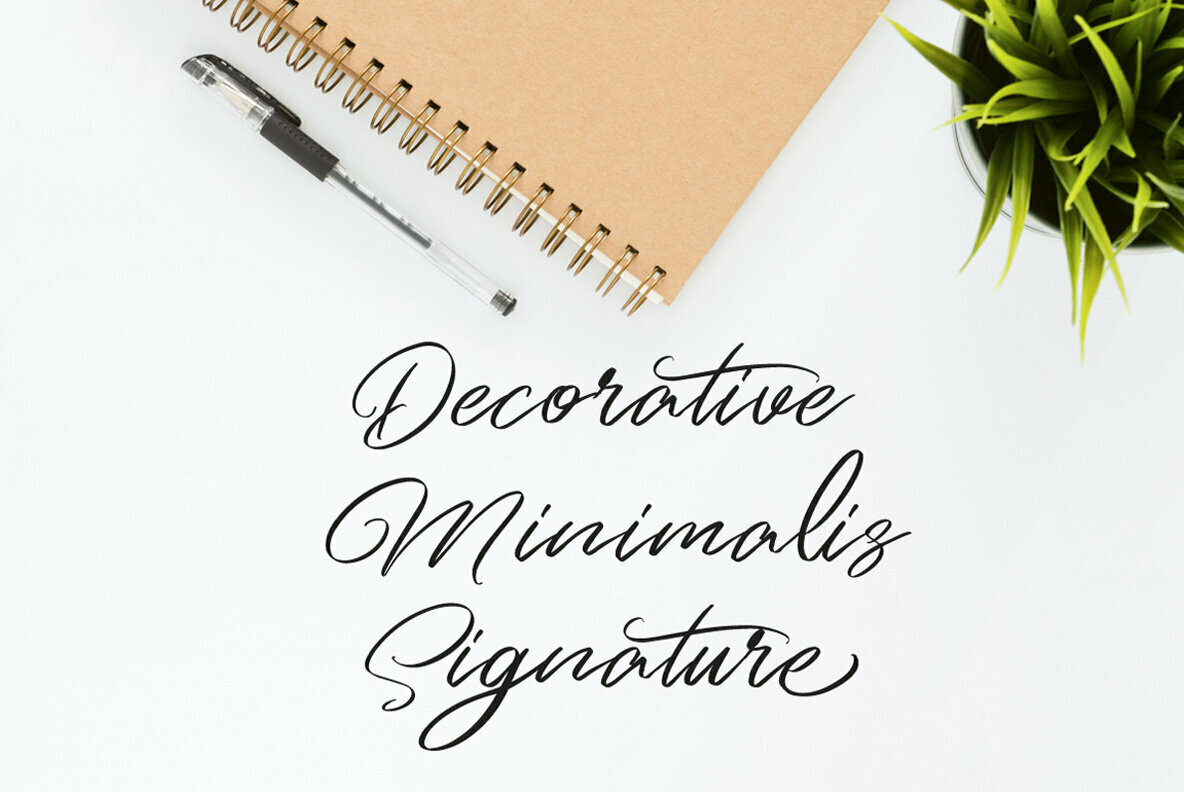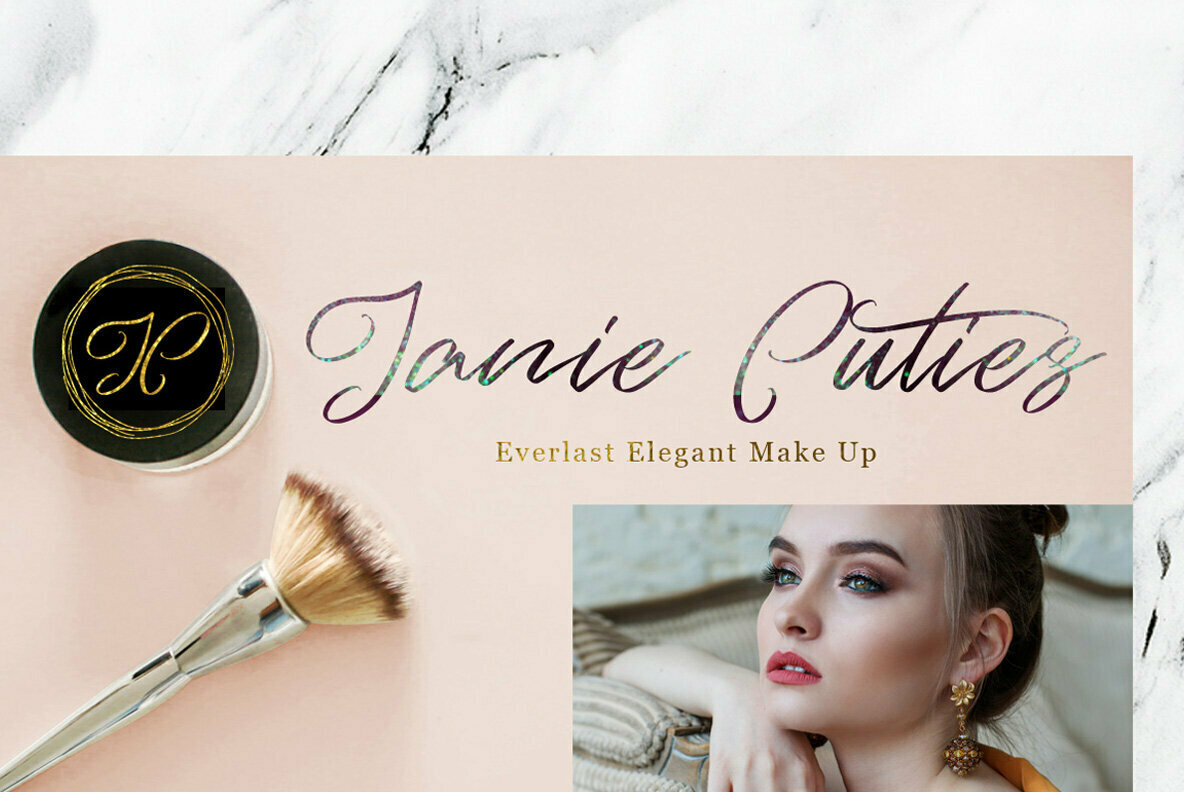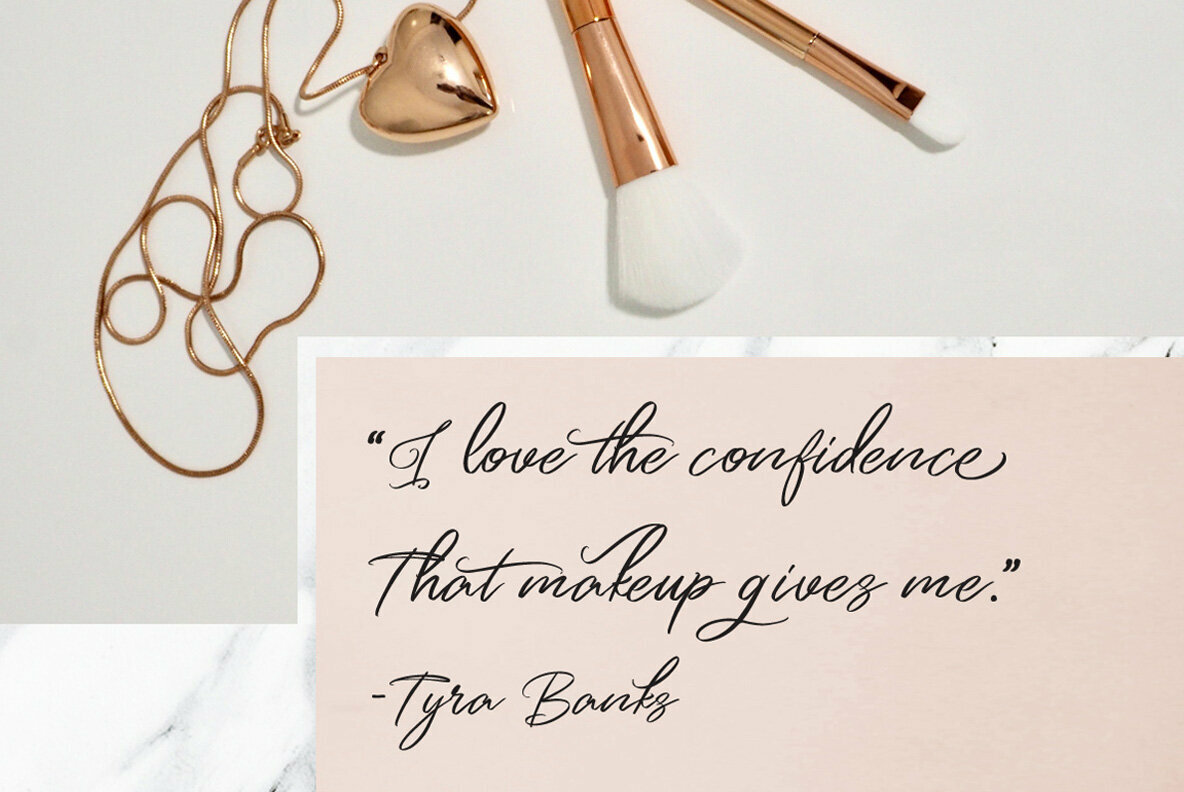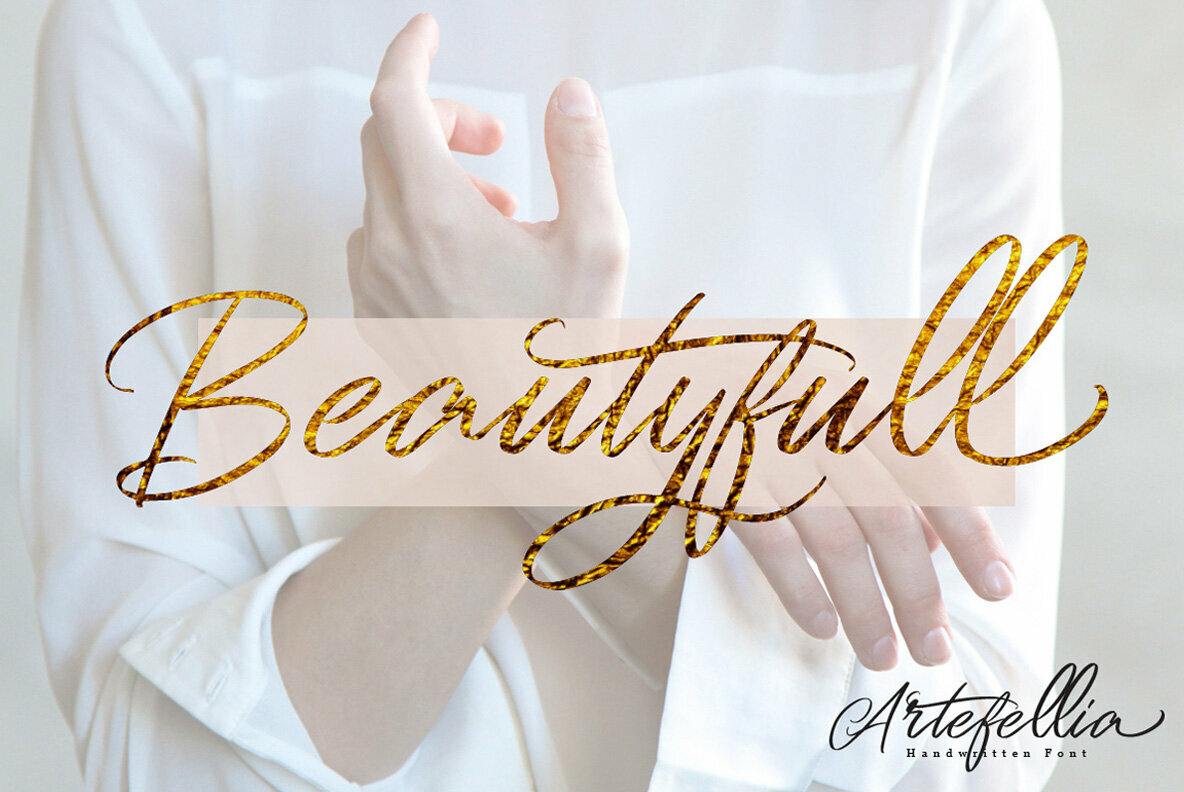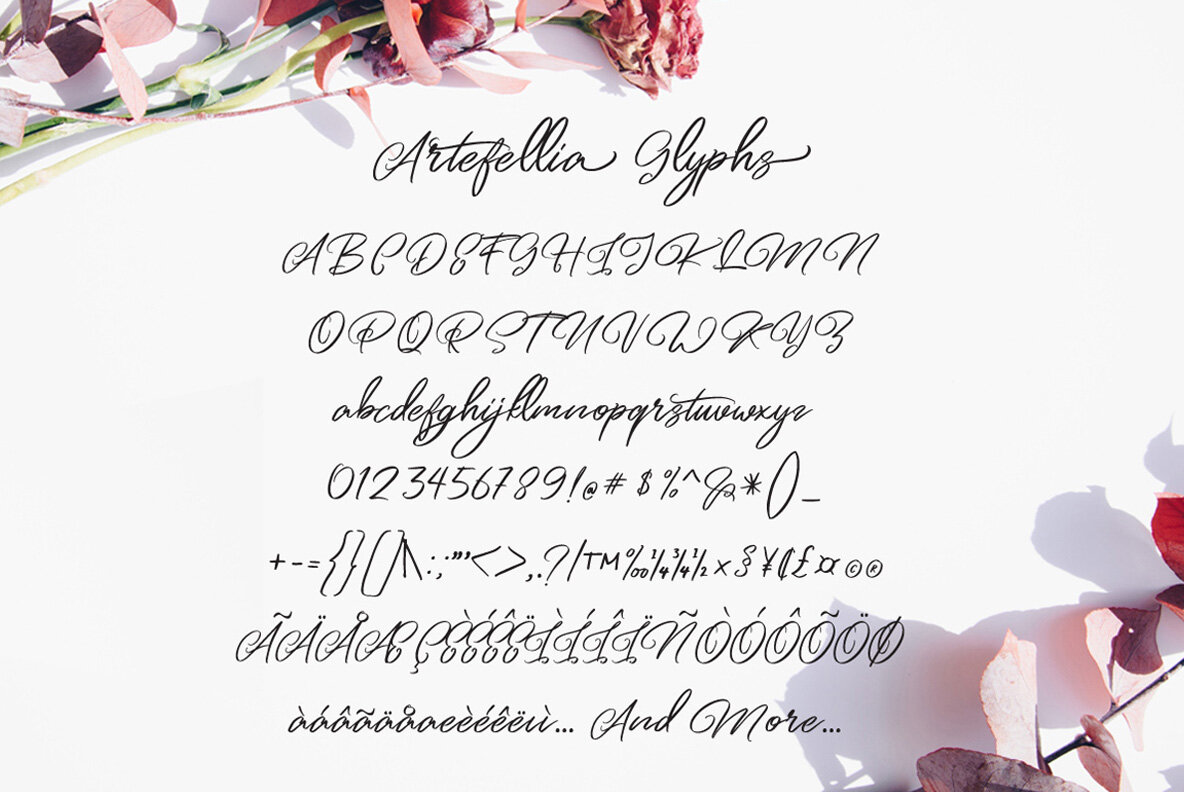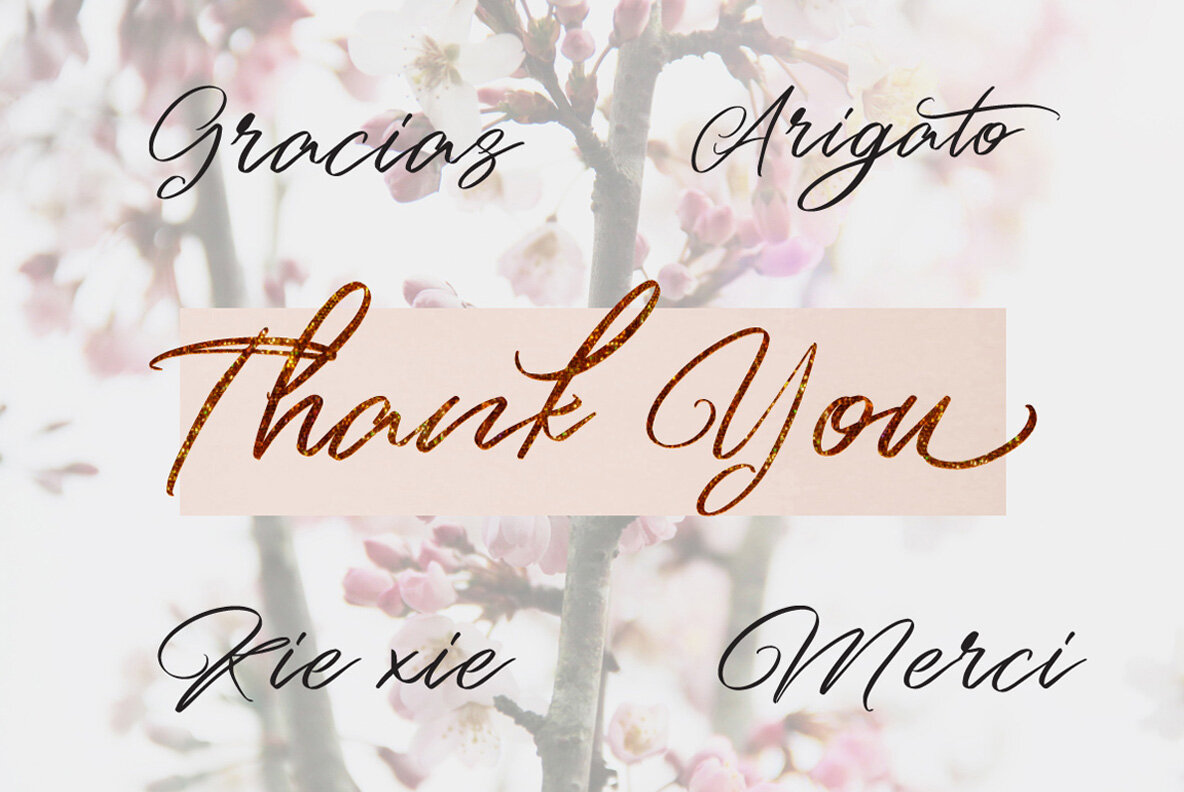
Artefellia Font
Artefellia
Artefellia offers a distinctive handwriting-inspired style perfect for projects that demand an artistic flair. This font is crafted with a versatile hand-lettered brush style, encapsulating both elegance and creativity in every curve. Seamlessly adaptable, it is ideal not only for graphic design ventures but also for personal branding efforts that seek to make an impression.Artefellia: Elegant Signature Script